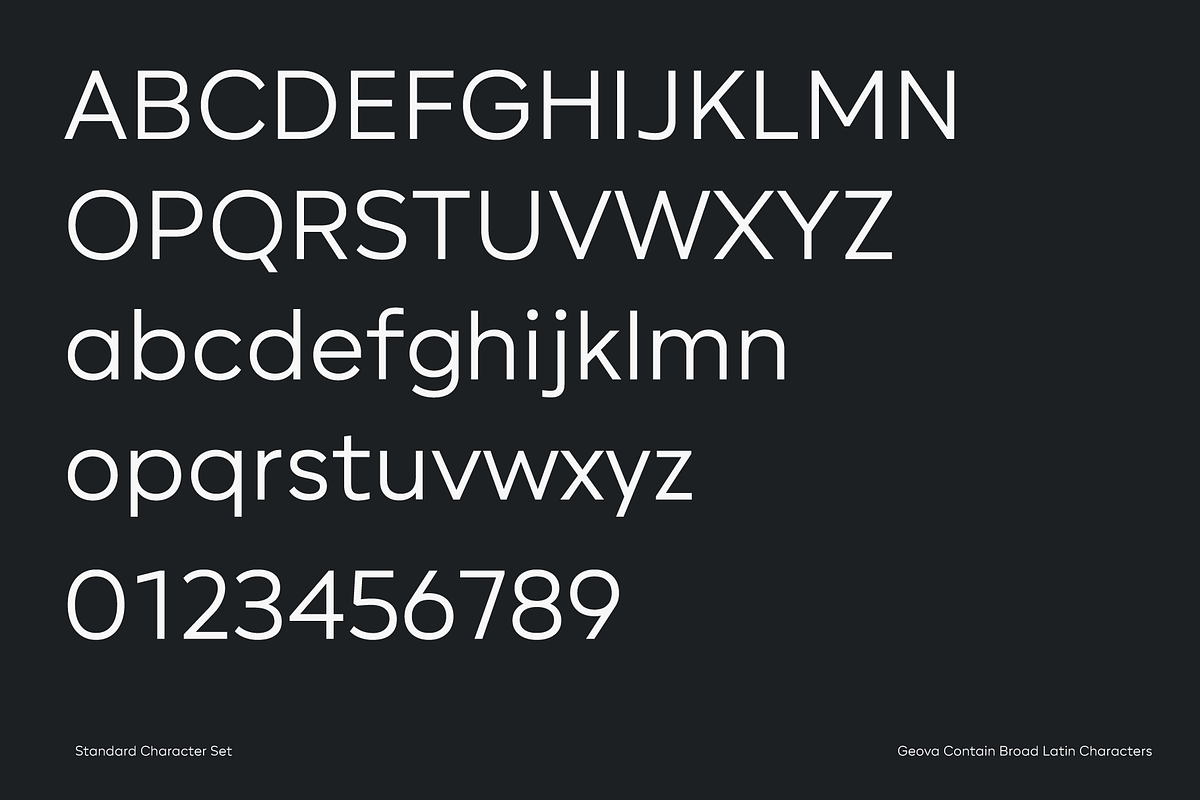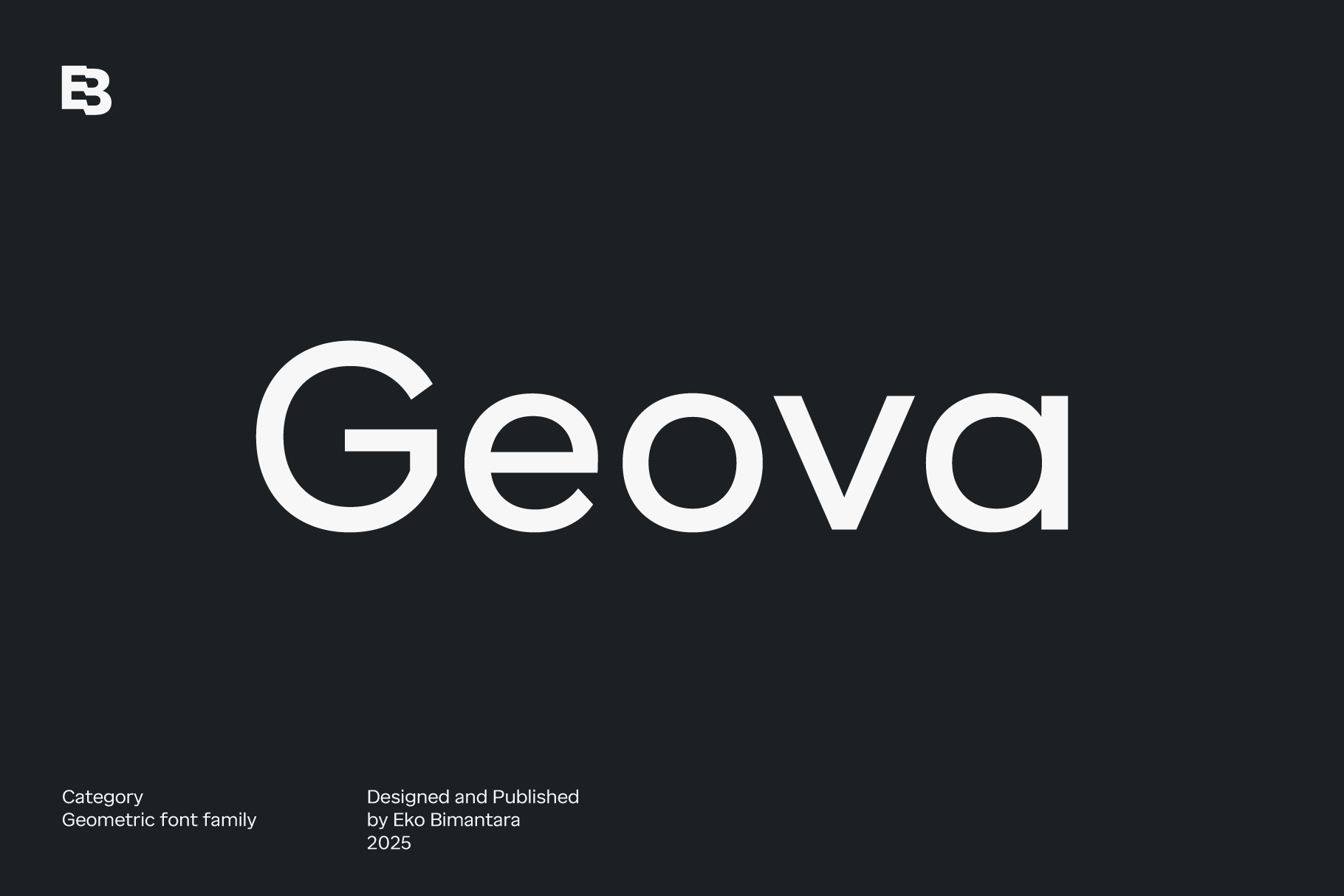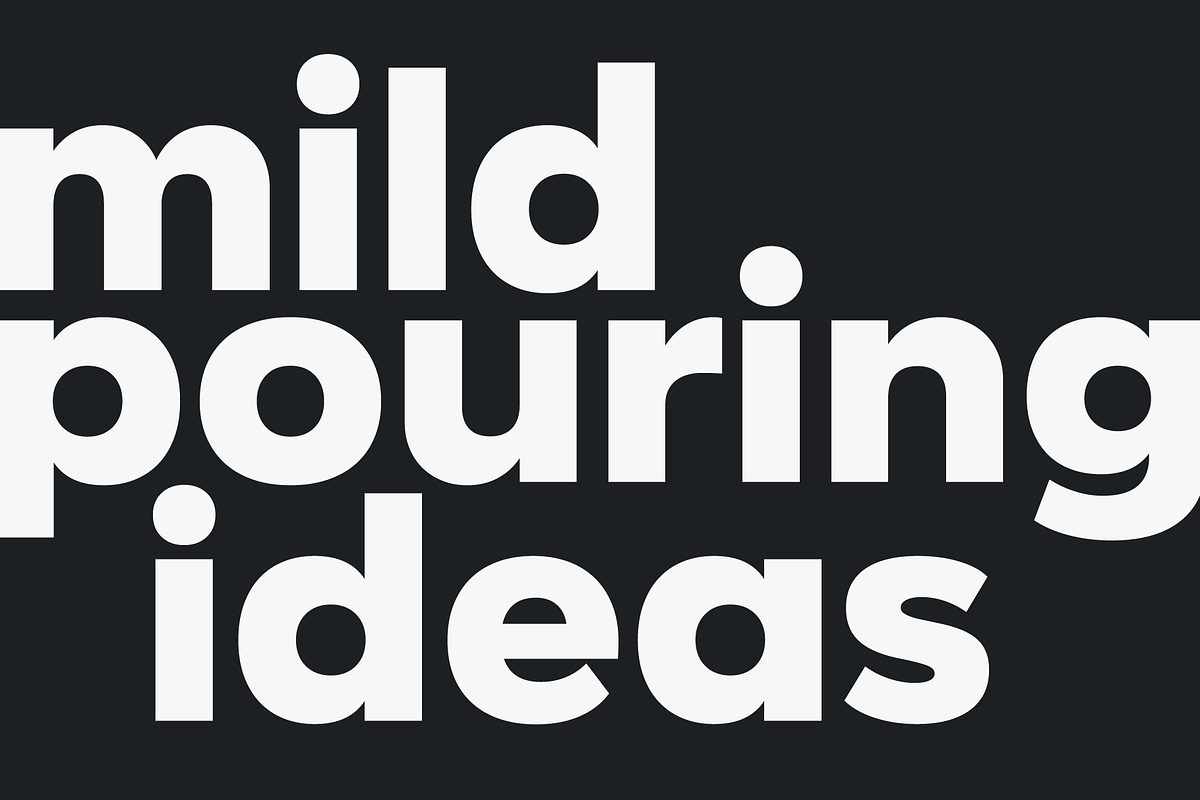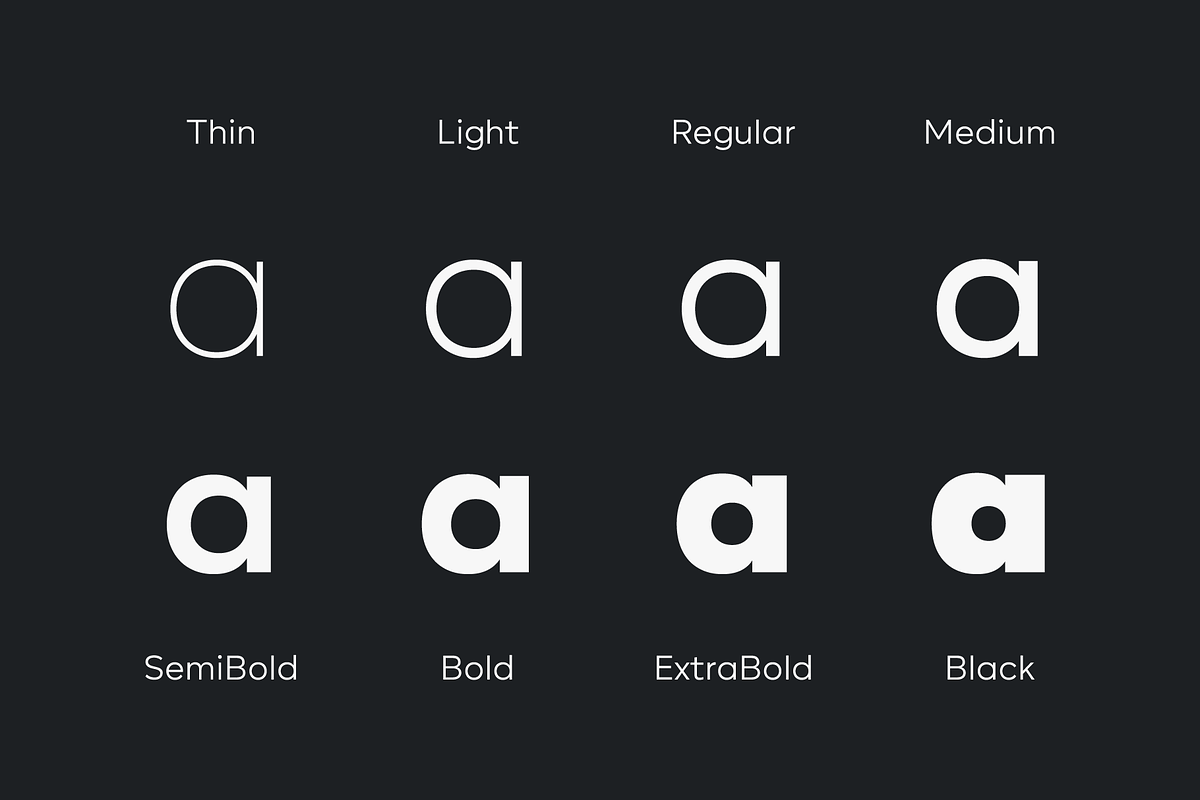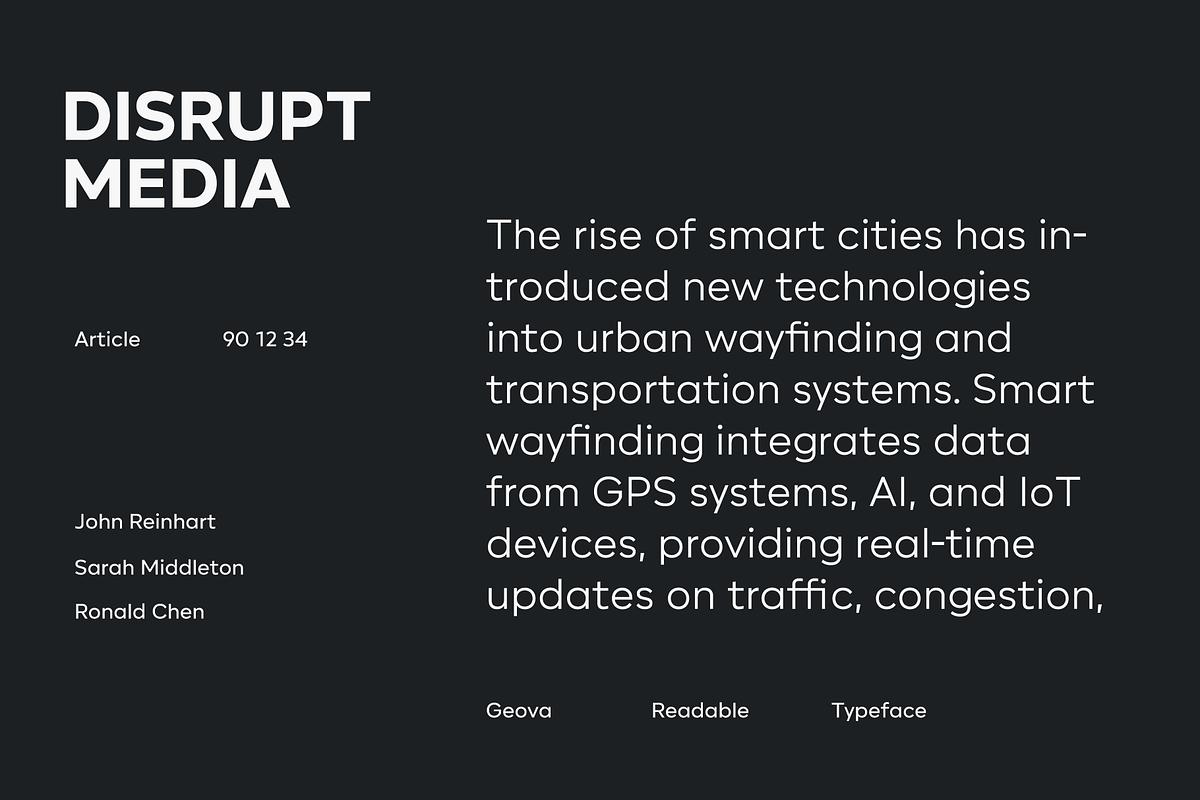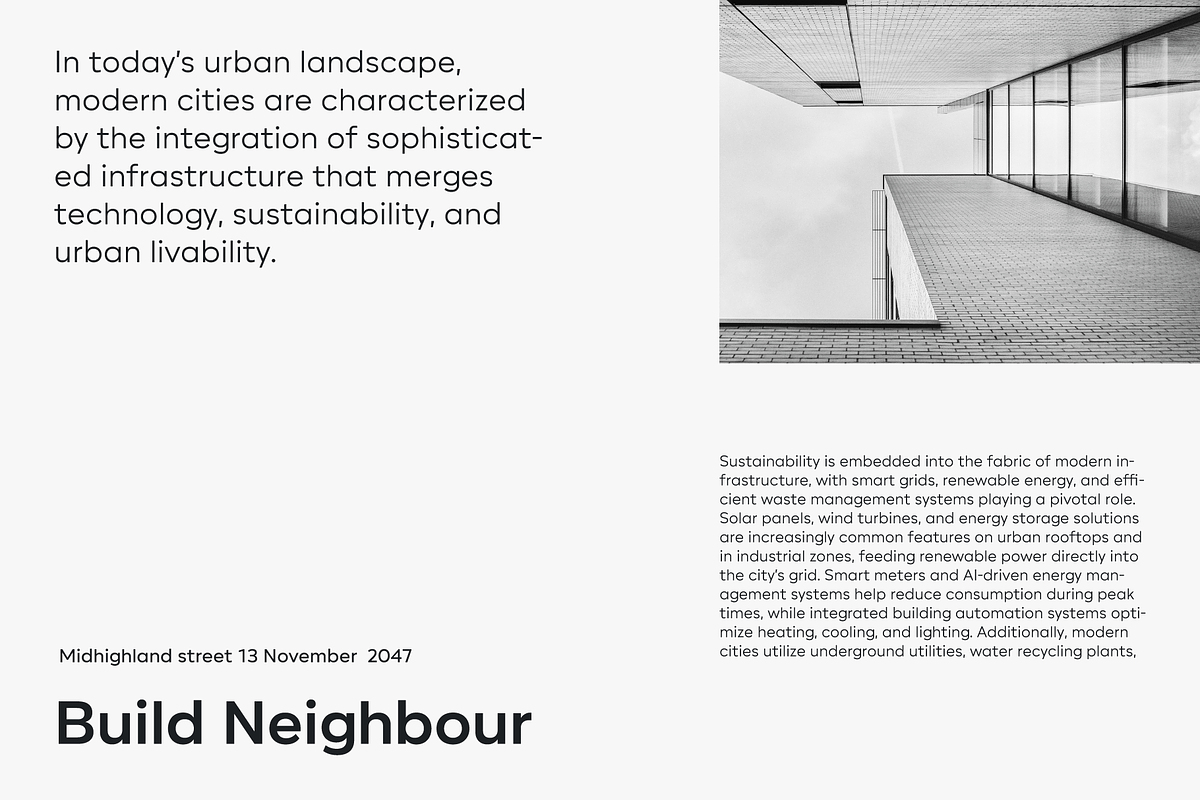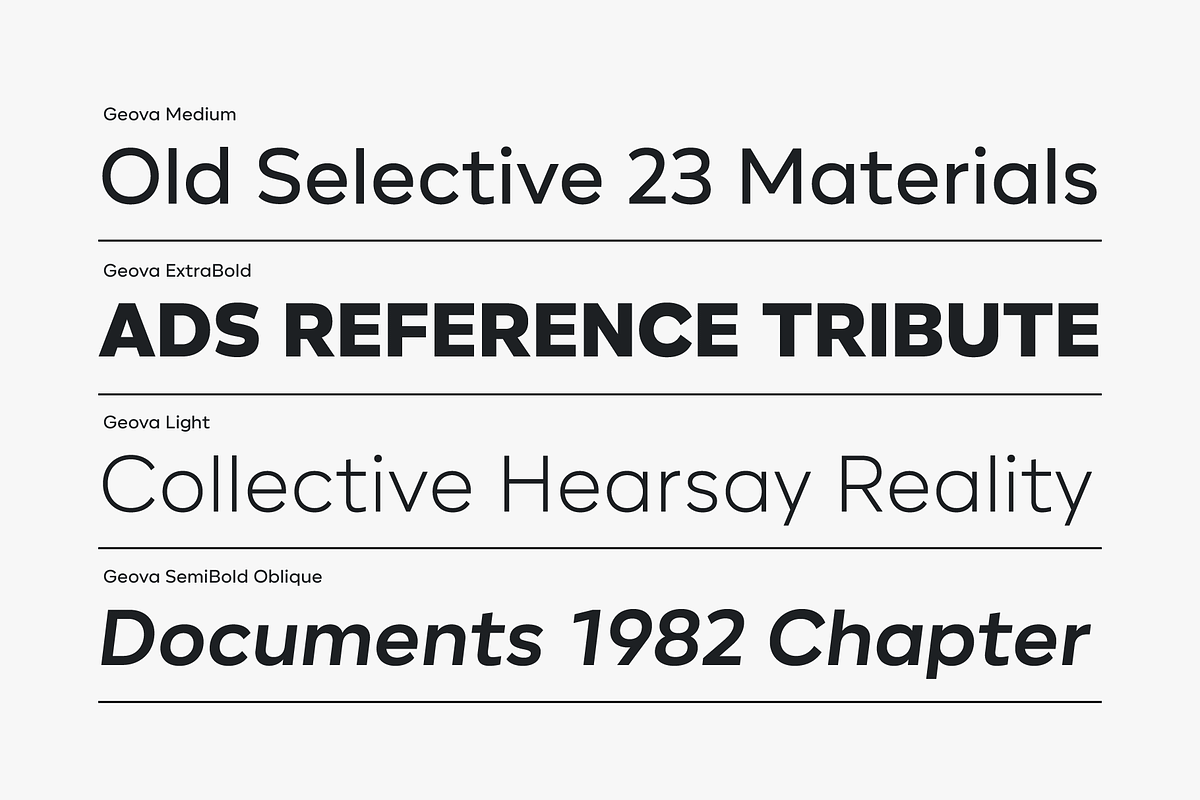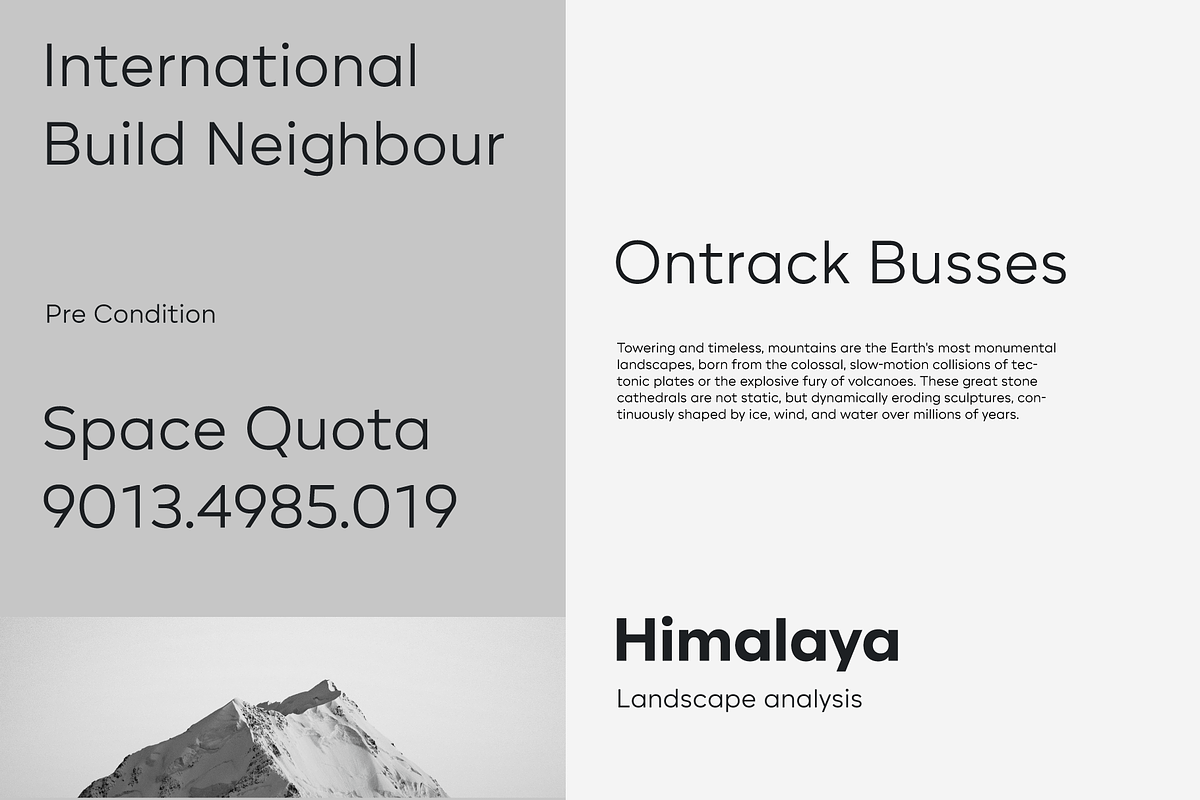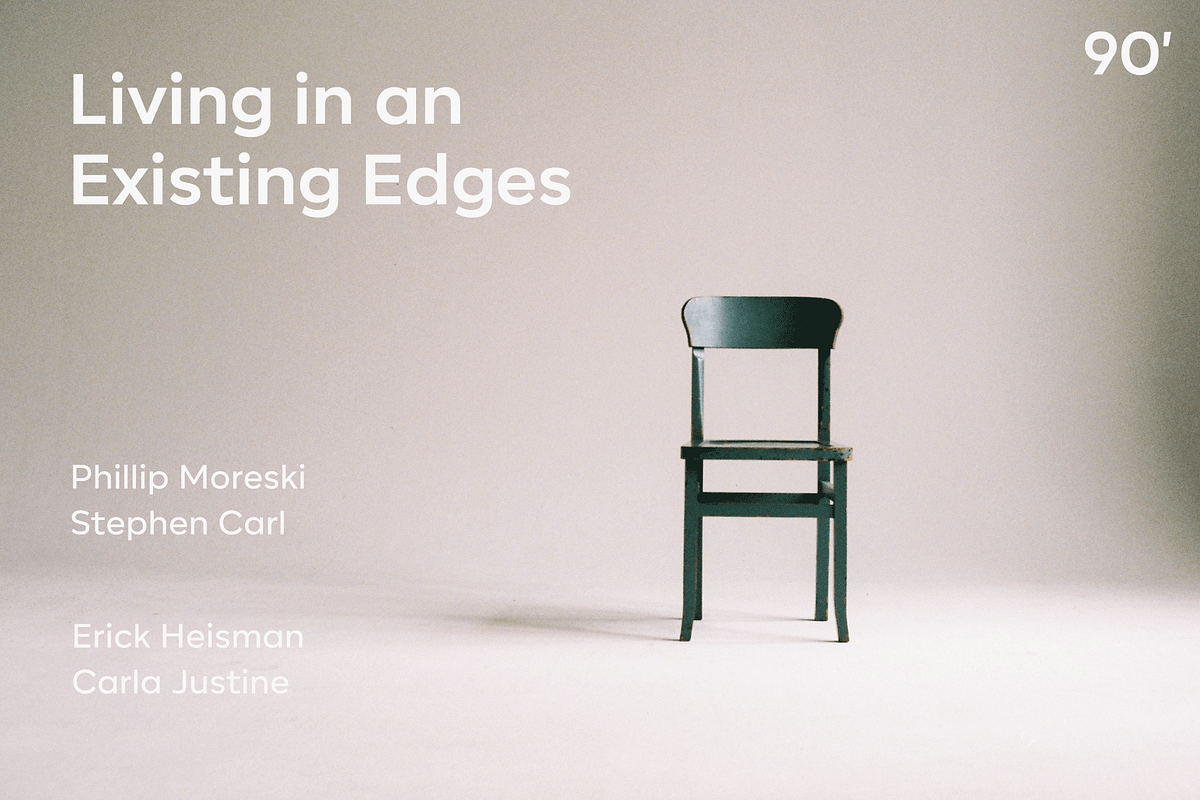
Geova: 16 Geometric Sans Fonts
Geova is a geometric sans font family with a humanist touch in its letter proportions, offering a clean and versatile design that works seamlessly for both display and text. Its adaptability makes it suitable for a variety of design themes, including corporate, enterprise, contemporary design, product, brand, and functional design. Perfect for use in large sizes, titles, headers, websites, brand identities, product packaging, and a broad range of graphic design and creative purposes, Geova’s balance of geometric precision and humanist warmth ensures it fits effortlessly into any project.